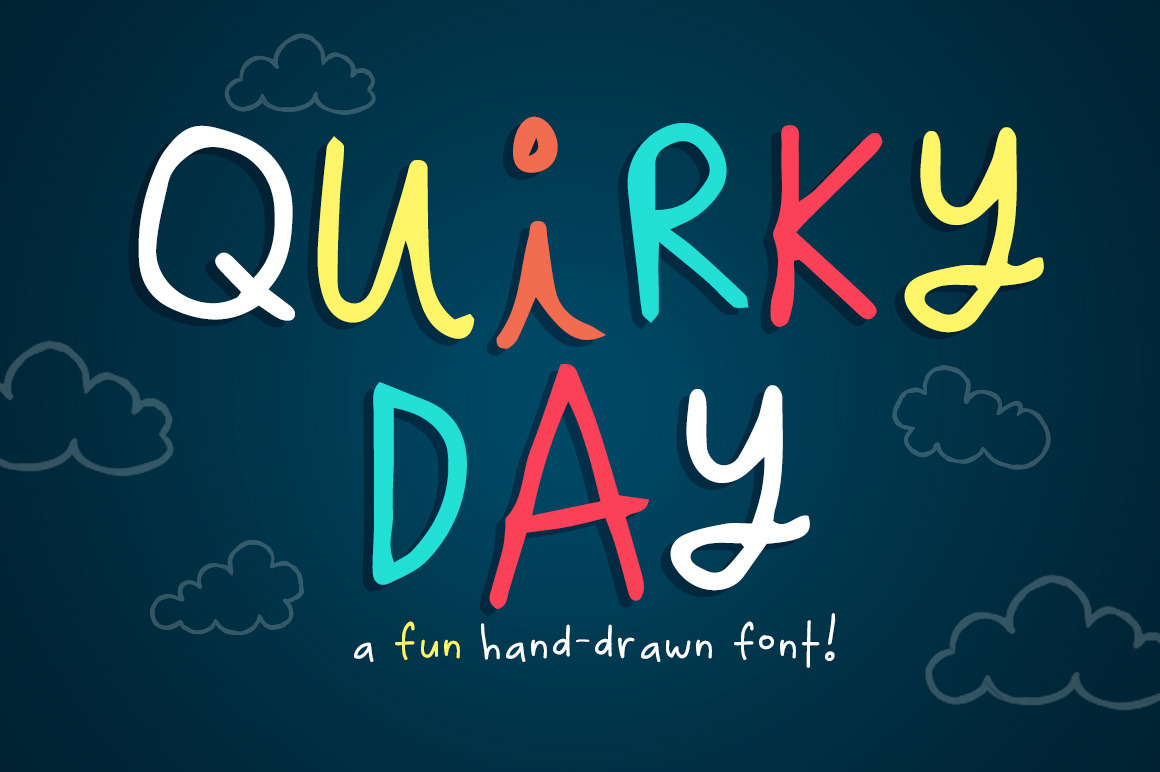
Quirky Day Font
Quirky Day is a fun, hand-drawn font that's perfect for greeting cards, headlines, displays, signs, and a whole lot more! Fun and casual, with uneven letters, dotted i's, and loopy y's, this font brings a youthful, dynamic vibe to your projects.
- All uppercase
- All lowercase
- Numerals and punctuation